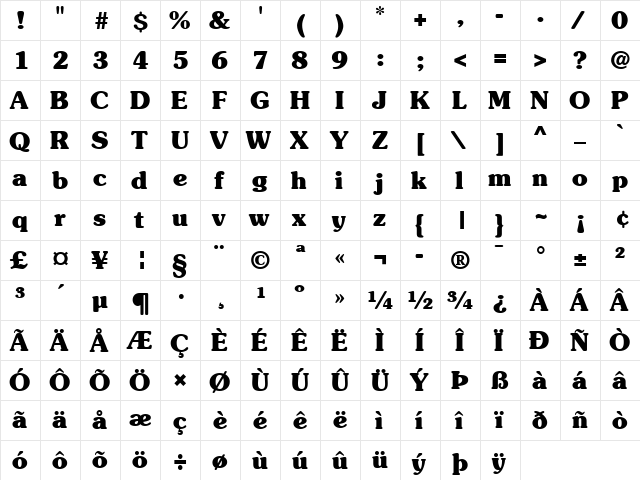
Souvenir LT Medium Bold
Design Context for Souvenir LT Medium Typeface
Souvenir LT Medium is a composed and adaptable typeface that performs quietly and consistently across a wide range of design contexts. Its bold stroke weight gives it real presence on the page.
Pro Tip: Pair Souvenir LT Medium with a font of contrasting weight or personality to build a more expressive typographic hierarchy.